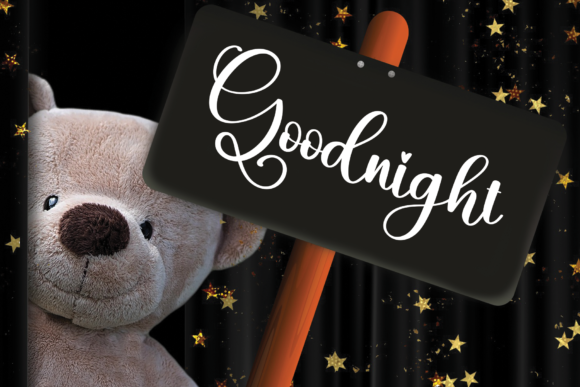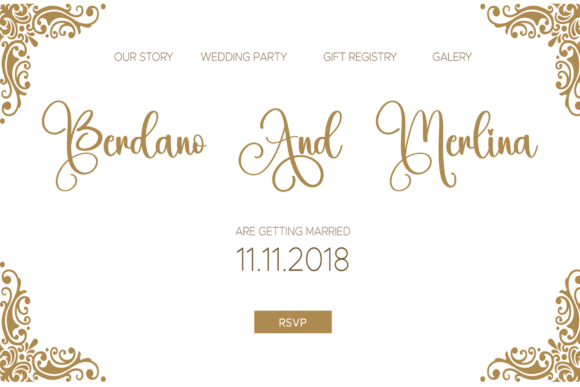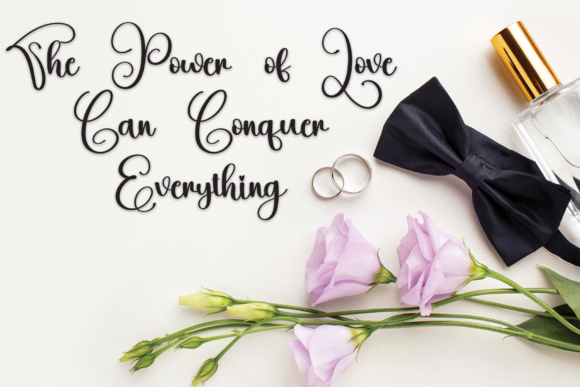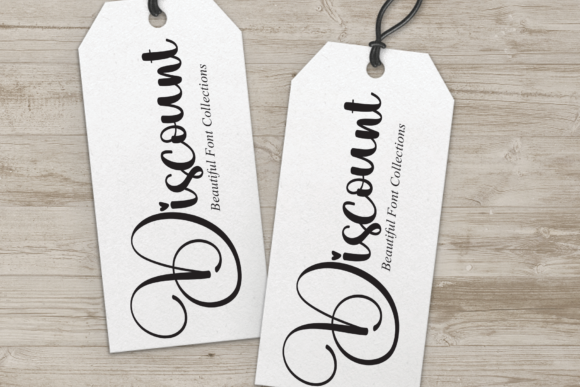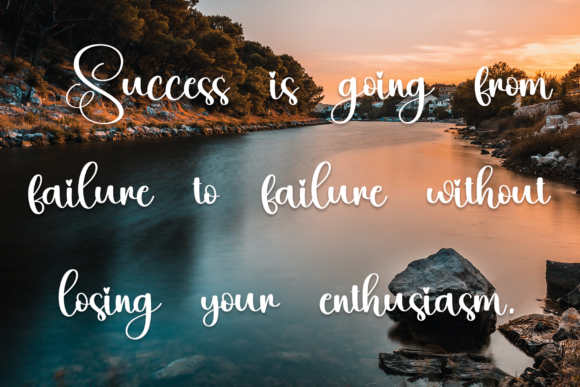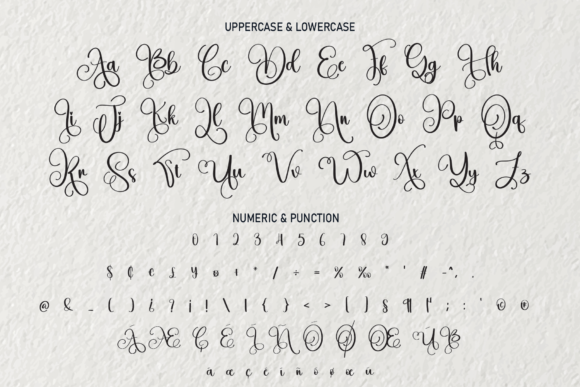
Introducing Berbec Font: Elevate Your Designs with Elegance
Are you a designer or crafter looking for a font that exudes elegance and sophistication? Look no further than Berbec Font. This beautiful, elegant script font is perfectly suited for wedding invitations, tasteful designs, and any project that requires a touch of refinement. In this article, we’ll dive into the world of Berbec Font, exploring its features, uses, and benefits.
What is Berbec Font?
Berbec Font is a stunning script font designed to add a sprinkle of elegance to any design. Its flowing lines, intricate details, and classic charm make it an ideal choice for projects that demand a high level of sophistication. Whether you’re creating wedding invitations, branding materials, or social media graphics, Berbec Font is sure to impress.
Key Features of Berbec Font
• Elegant Script Style: Berbec Font boasts a beautiful, cursive script style that’s perfect for creating eye-catching designs.
• Highly Readable: Despite its elegant nature, Berbec Font remains highly readable, making it suitable for both headings and body text.
• Versatile: Berbec Font can be used on a variety of design materials, from digital graphics to print materials.
Uses of Berbec Font
Berbec Font is an incredibly versatile font that can be used in a wide range of design projects. Here are some ideas to get you started:
• Wedding Invitations: Berbec Font is perfect for creating beautiful, elegant wedding invitations that set the tone for a special day.
• Branding Materials: Use Berbec Font to create sophisticated branding materials, such as logos, business cards, and letterheads.
• Social Media Graphics: Add a touch of elegance to your social media graphics, such as Instagram posts and Facebook banners.
• Stationery: Create beautiful stationery, including notecards, journals, and planners.
Benefits of Using Berbec Font
So, why choose Berbec Font for your design projects? Here are just a few benefits:
• Instant Elegance: Berbec Font adds an instant touch of elegance to any design, making it perfect for projects that demand sophistication.
• Time-Saving: With Berbec Font, you can create stunning designs quickly and easily, saving you time and effort.
• Professional Results: Berbec Font is designed to produce professional results, making it ideal for designers and crafters who want to create high-quality designs.
Tips for Using Berbec Font
To get the most out of Berbec Font, here are a few tips to keep in mind:
• Pair with Simple Backgrounds: Berbec Font looks best on simple backgrounds, so try pairing it with solid colors or subtle textures.
• Experiment with Colors: Berbec Font comes in a range of colors, so don’t be afraid to experiment and find the perfect shade for your design.
• Use for Headings and Titles: Berbec Font is perfect for headings and titles, so use it to add a touch of elegance to your design.
In conclusion, Berbec Font is a beautiful, elegant script font that’s perfect for designers and crafters looking to add a touch of sophistication to their designs. With its flowing lines, intricate details, and classic charm, Berbec Font is sure to impress. Whether you’re creating wedding invitations, branding materials, or social media graphics, Berbec Font is an excellent choice. So why not give it a try and see the difference it can make in your designs?